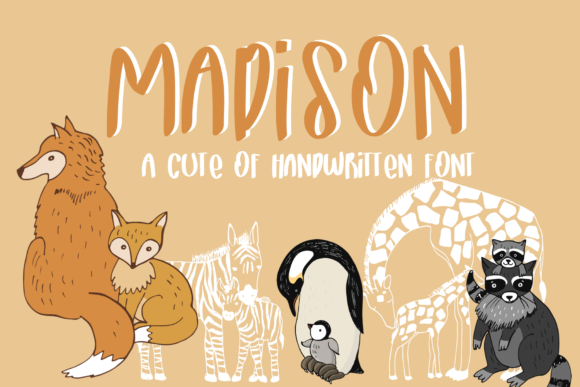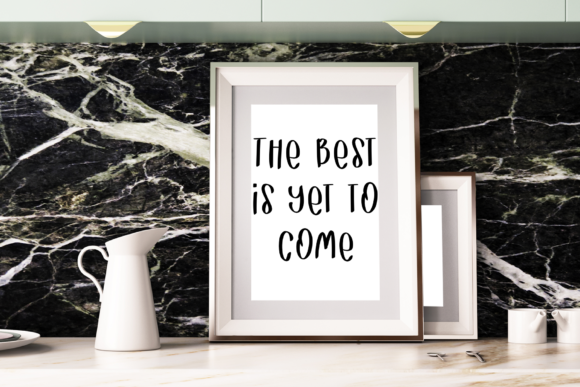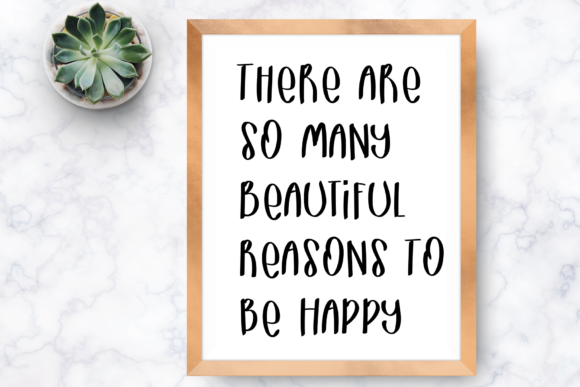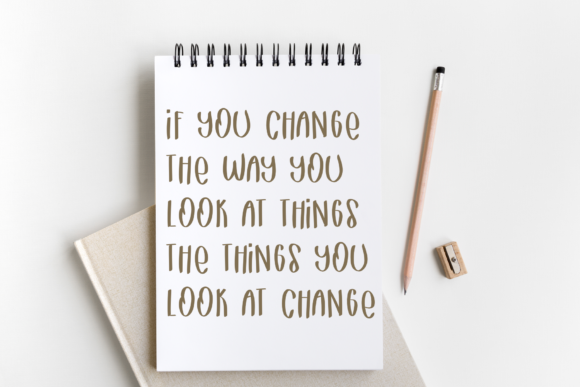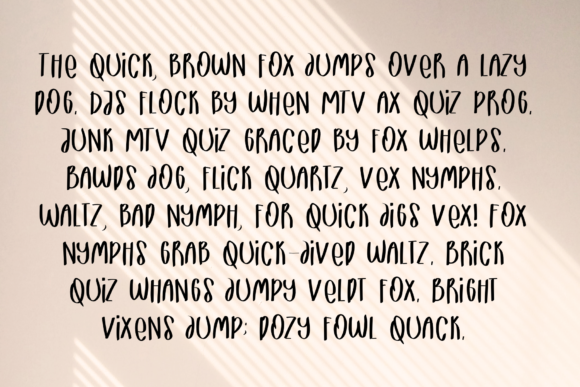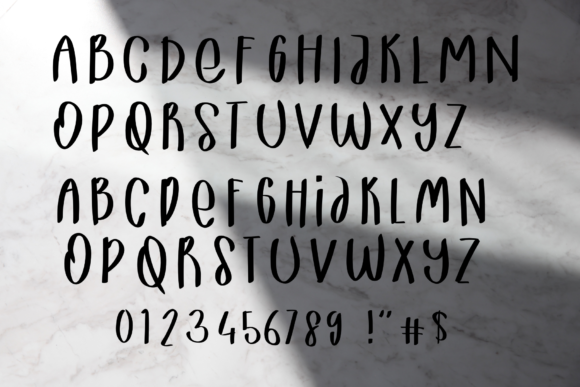
About Madison Font
Madison is a quirky and casual handwritten font. Its friendly and relaxed style makes it incredibly versatile, fitting a wide variety of designs.cute handwritten font with a lovely appearance. Use this cute and unique font to bring any DIY project to life!